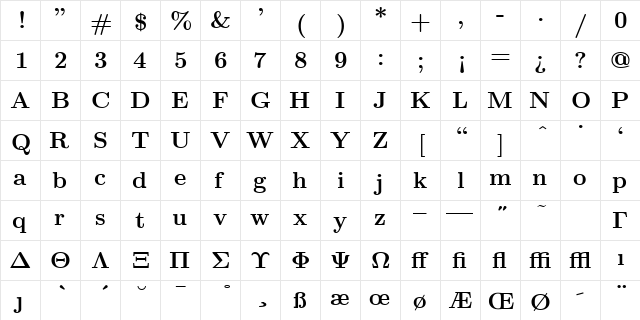
cmbx12 Regular
Design Context for cmbx12 Typeface
cmbx12 is a composed and adaptable typeface that performs quietly and consistently across a wide range of design contexts.